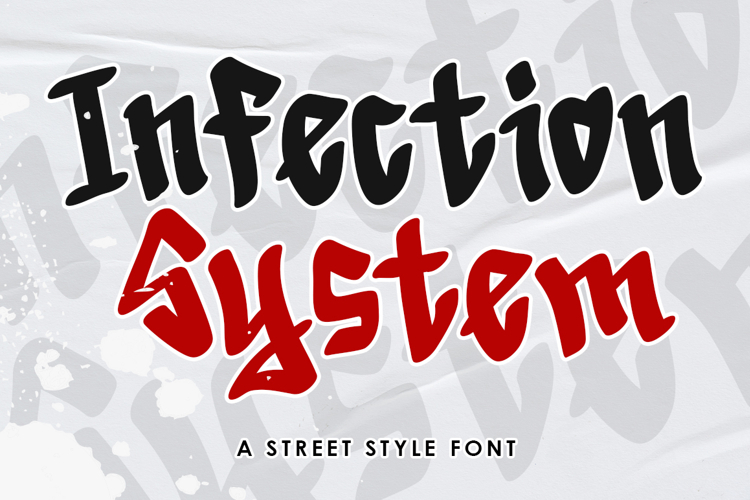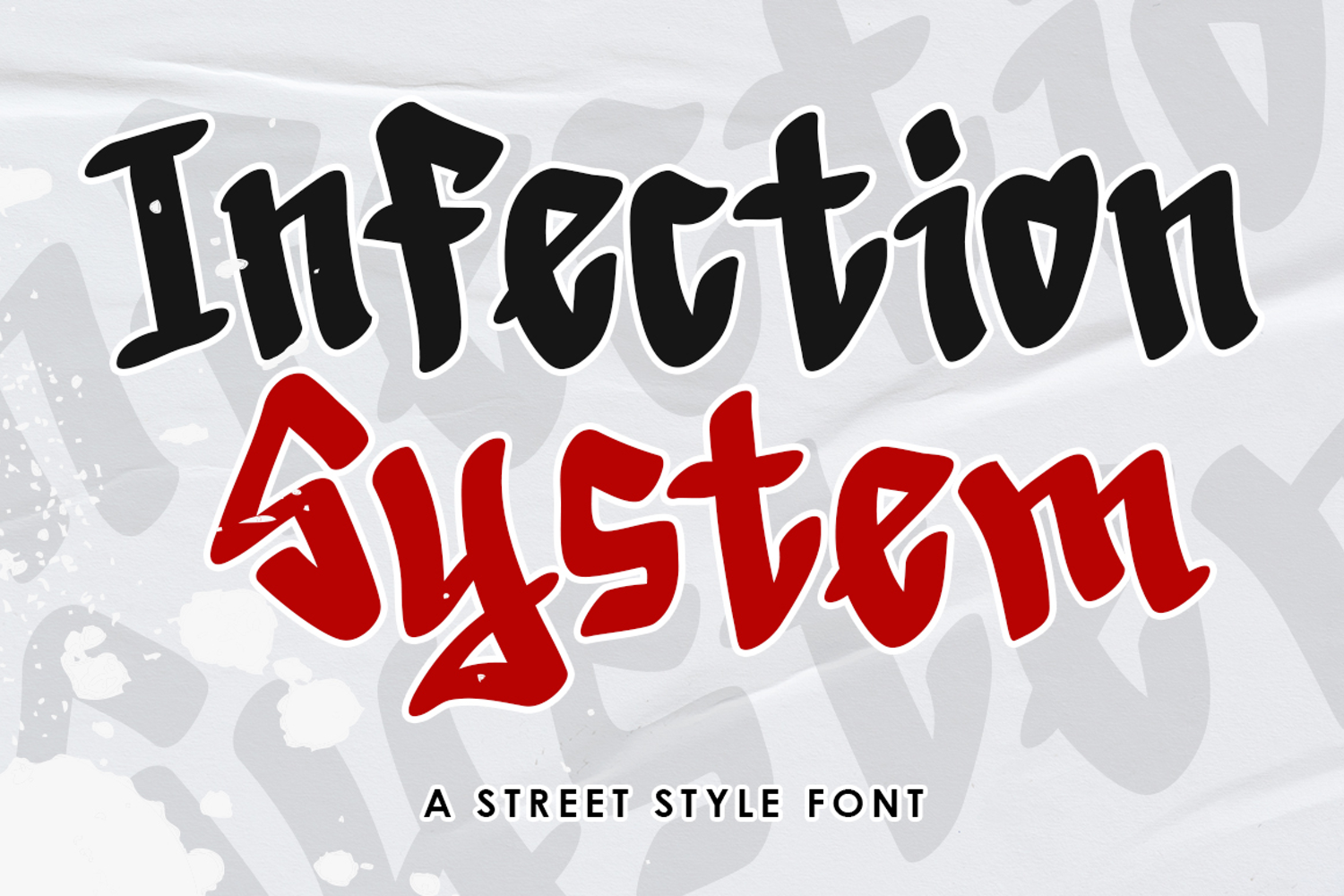
Infection System is a bold, expressive, and characterful street and graffiti-style font. Inspired by urban culture, street graffiti, and a rebellious vibe, this font features bold letterforms with dynamic curves and an authentic, rough feel. Each character is vibrant and bold, perfect for instantly capturing attention.
This font is ideal for poster designs, hip-hop or rap music titles, streetwear artwork, urban brand logos, album covers, merchandise designs, and even social media content that wants to convey an edgy and modern feel. Infection System provides a strong street style touch, making designs appear more energetic, free-flowing, and full of attitude.